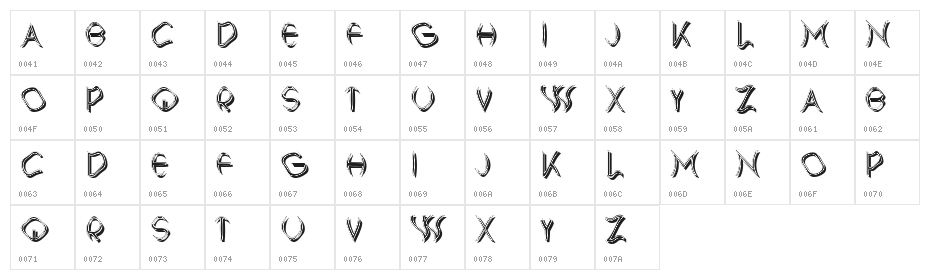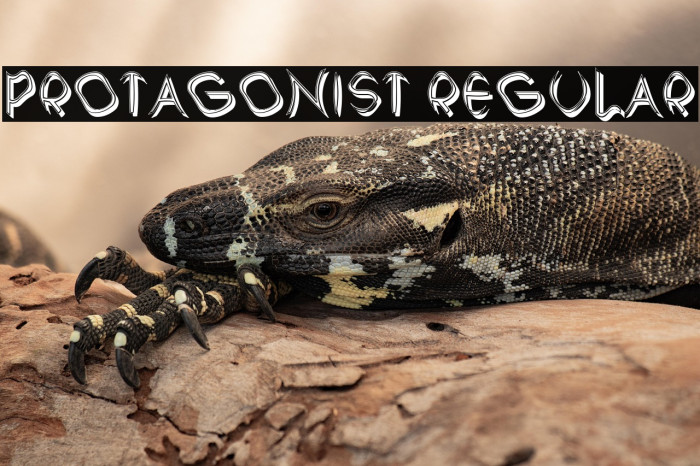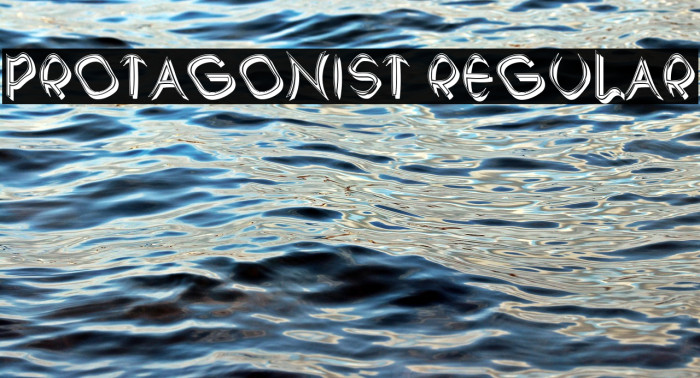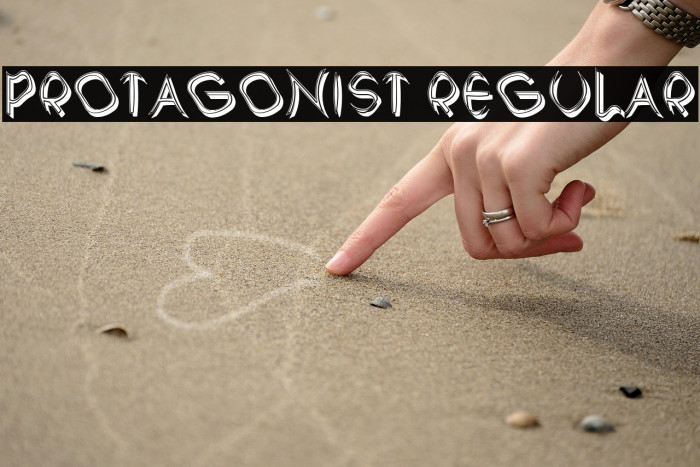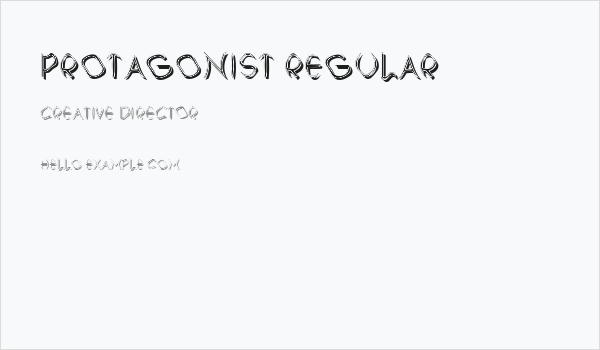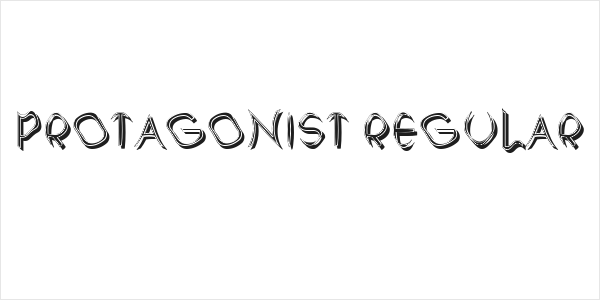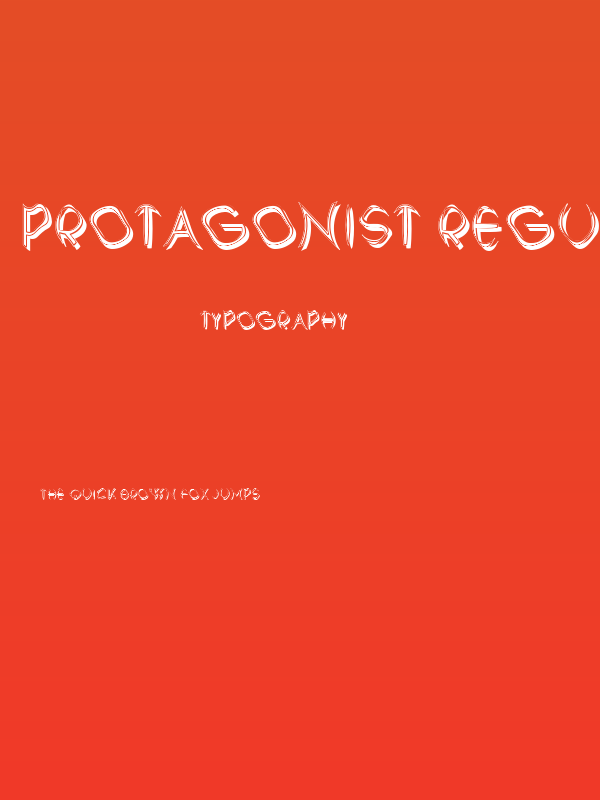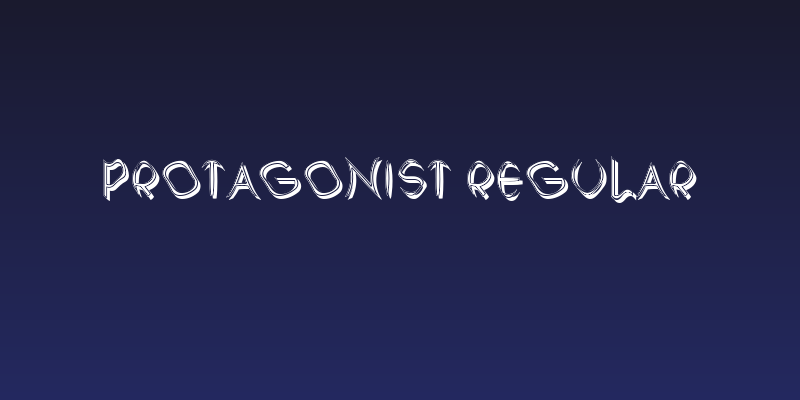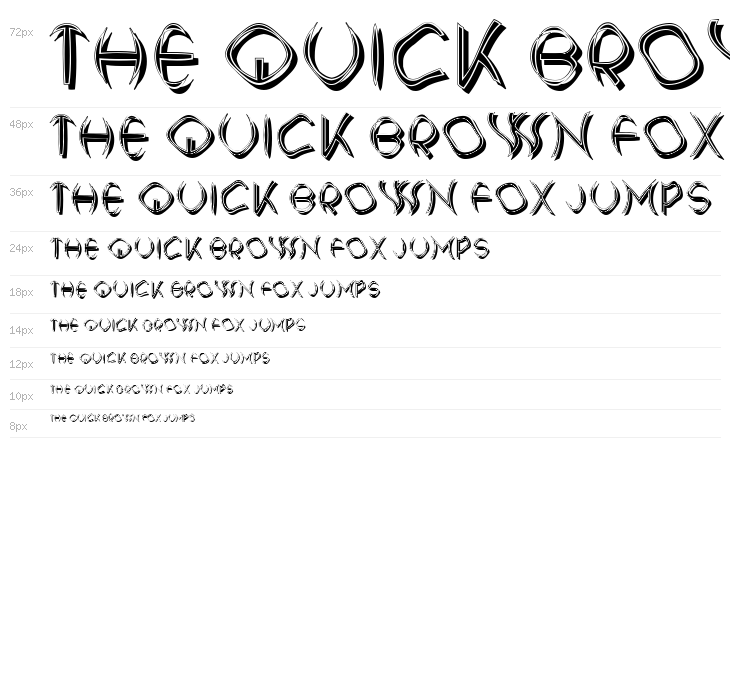
Protagonist Regular Font
Protagonist Regular Description
This font features a unique and artistic design with a futuristic and decorative flair. The characters are composed of bold strokes with intricate detailing, creating a sense of movement and dynamism. The uppercase and lowercase letters maintain a consistent style, with sharp angles and curves that give the font a distinctive look. The numbers and special characters are equally stylized, ensuring a cohesive appearance across all elements. This font stands out with its high contrast and elaborate design, making it ideal for eye-catching displays.
| Overall Style | Futuristic, Decorative |
| Proposed Projects | Ideal for sci-fi themed projects, posters, video game graphics, and branding that requires a modern and edgy look. |